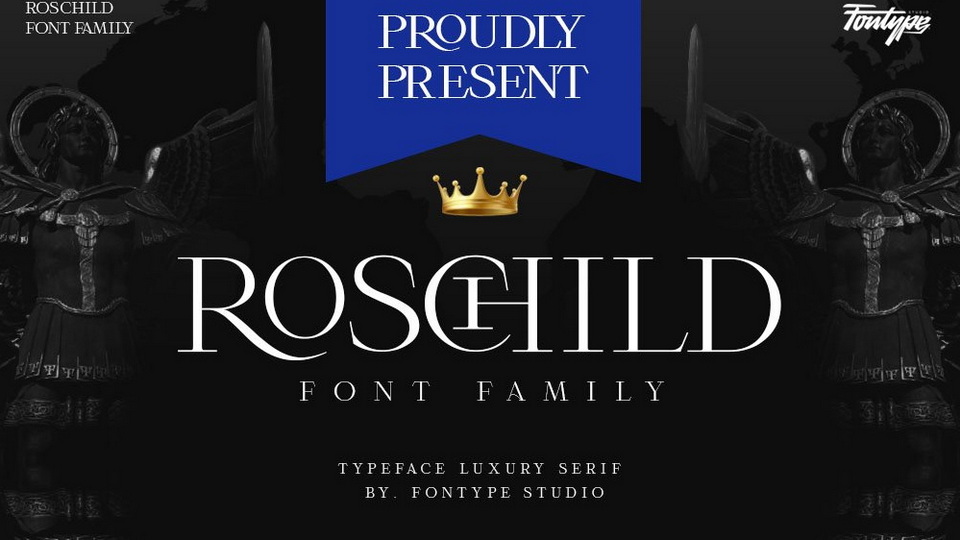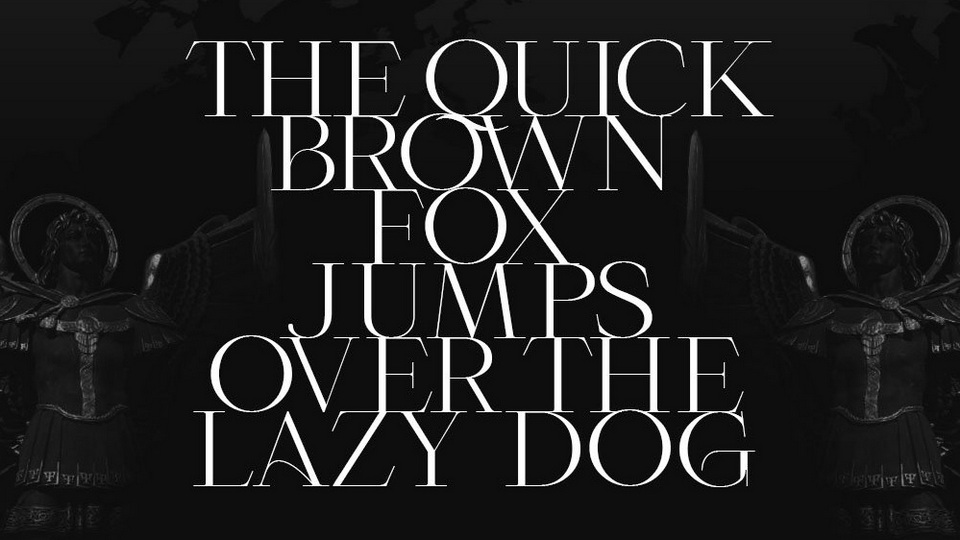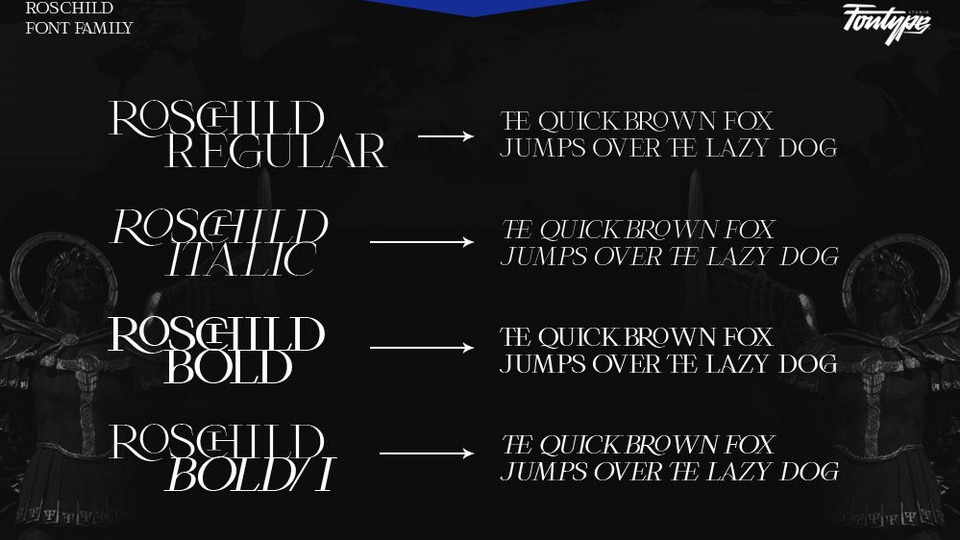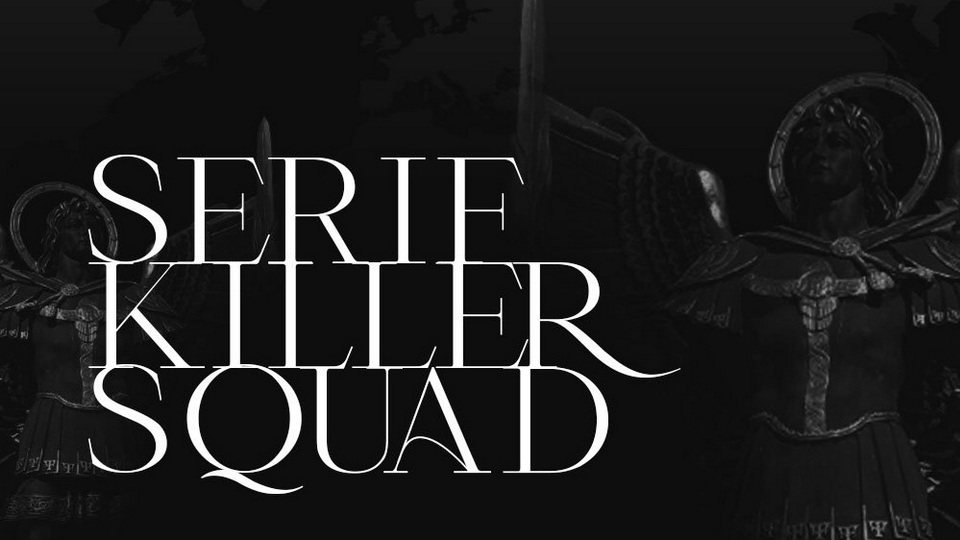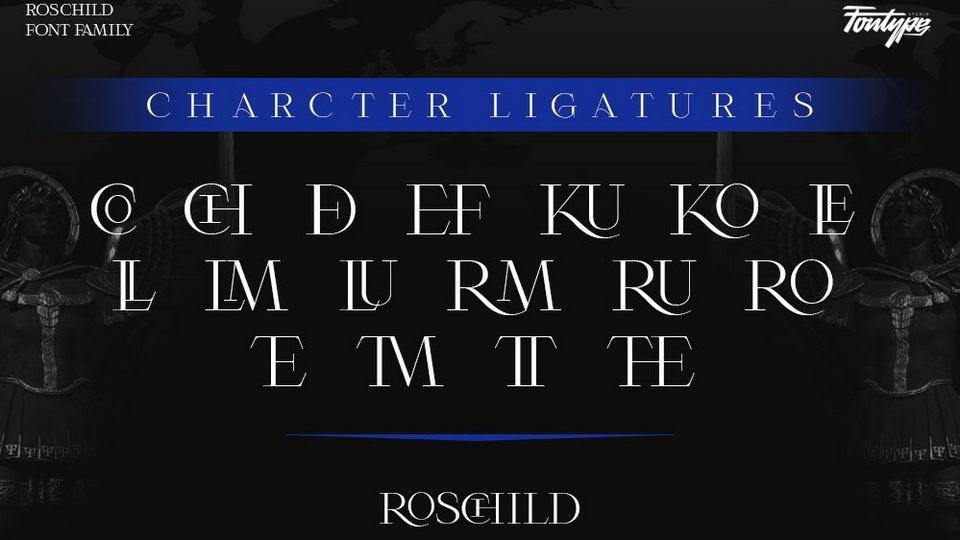
Roschild is a serif font inspired by ancient writing with a slight gothic / darkness touch but still brings a luxurious and elegant impression to every letter.
The free version of Roschild includes Regular weight, the complete family contains 4 styles.